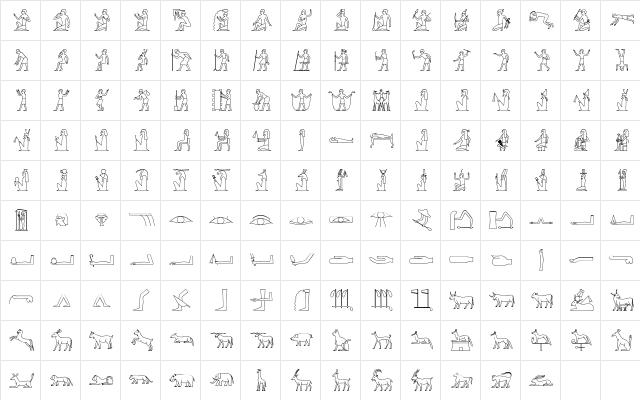
GlyphBasic1 Regular
Design Context for GlyphBasic1 Typeface
GlyphBasic1 is a composed and adaptable typeface that performs quietly and consistently across a wide range of design contexts.